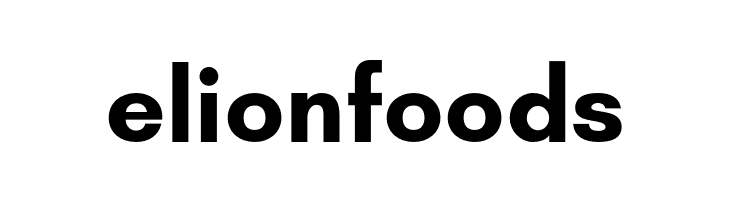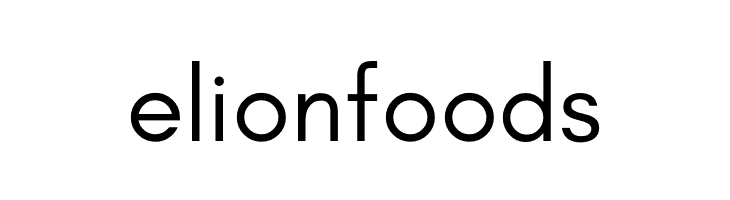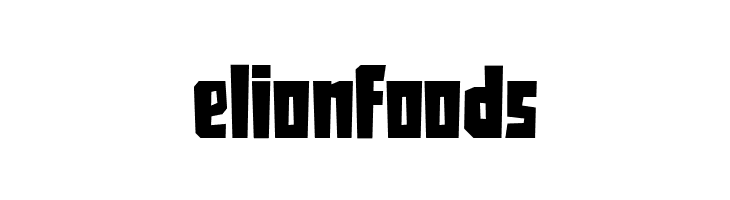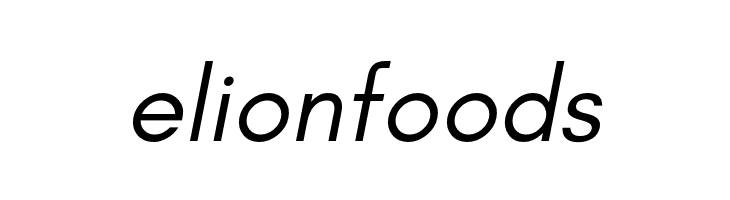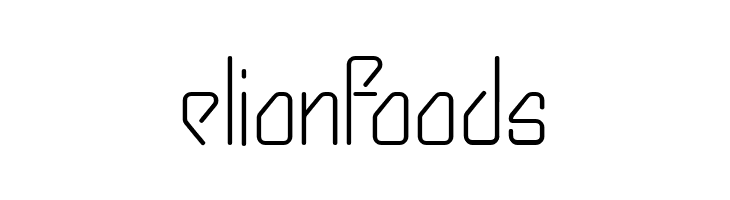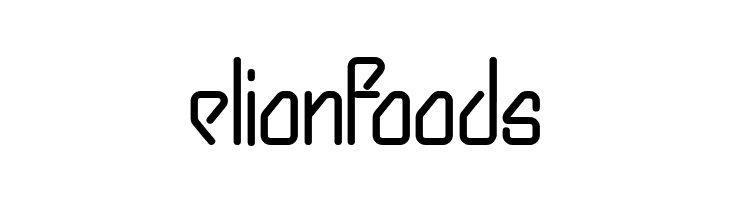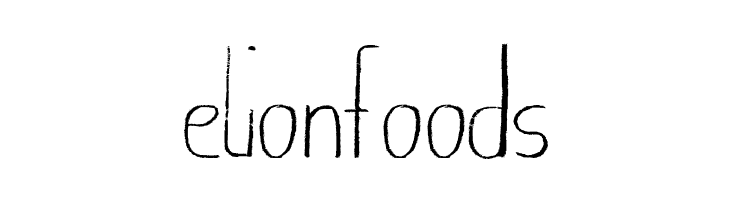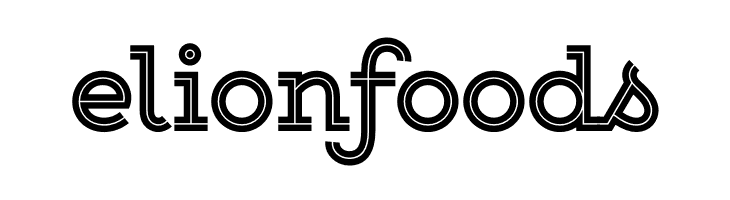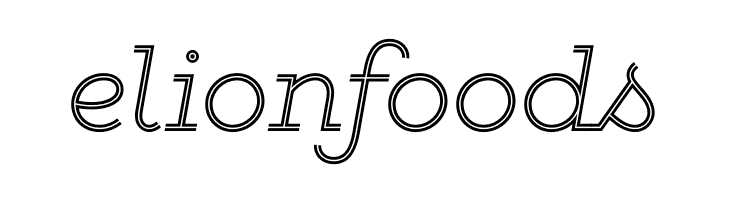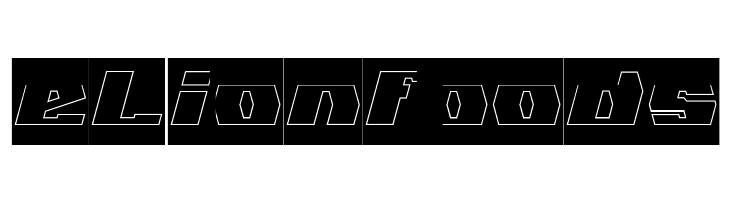
A tall, narrow font with a hand-drawn, modern aesthetic.
A playful, elongated font with a hand-drawn, artistic style.
A tall, narrow, and modern font with a unique vertical emphasis.
A tall, hand-drawn font with an elongated, rustic style.
A playful, handwritten font with rounded edges and consistent stroke width.
A bold, geometric font with intricate patterns and modern decorative style.
A playful and elegant script font with flowing cursive letters.
A bold, angular, and geometric font with a strong visual impact.
A playful, bold font with rounded edges and a hand-drawn feel.
A bold, playful font with rounded, hand-drawn characters.
A modern, outlined font with a clean and elegant design.
A bold, rounded font with a playful and modern style.
A bold, italicized font with rounded edges and a playful, modern style.
A playful, rounded italic font with bold, smooth characters.
A modern, hollow outlined font with rounded characters and consistent line thickness.
A modern, hollow, outlined font with smooth, rounded edges.
A bold, modern font with rounded edges and geometric style.
A futuristic, geometric font with clean lines and sharp angles.
A futuristic, geometric font with outlined, angular letterforms.
A bold, futuristic font with geometric shapes and sharp angles.
A modern, italic sans-serif font with clean lines and balanced proportions.
A clean, modern sans-serif font with geometric shapes and even stroke widths.
A clean, modern sans-serif font with geometric shapes and uniform strokes.
A bold, modern sans-serif font with a clean and structured design.
A bold, modern sans-serif typeface with geometric shapes and uniform stroke width.
A bold, angular font with a futuristic and sporty aesthetic.
A bold, italicized font with angular, geometric characters for a sporty, futuristic look.
A bold, italicized font with angular, geometric characters.
A bold, hollow, geometric font with a sporty and dynamic style.
A bold, hollow, inverse font with a modern, sporty aesthetic.
A bold, angular font with a sporty and aggressive design, ideal for dynamic headlines.
A bold, angular font with a modern, geometric style.